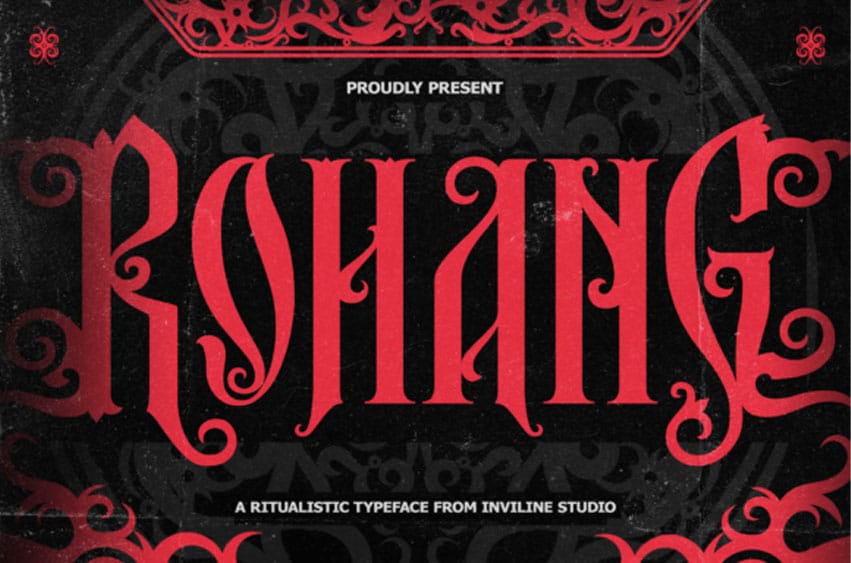
Rohang Font is a ritualistic blackletter typeface inspired by the mystic energy of tribal traditions and sacred ceremonies. With sharp, elongated strokes and ornamental curves, Rohang exudes a dark, powerful aura—perfect for designs rooted in folklore, metal music, tattoo branding, or occult aesthetics.
This typeface captures the bold visual language of ancestral rituals, echoing symbols of protection, rebellion, and spirituality. Whether for posters, album covers, or gothic branding, Rohang delivers fierce expression with cultural depth.